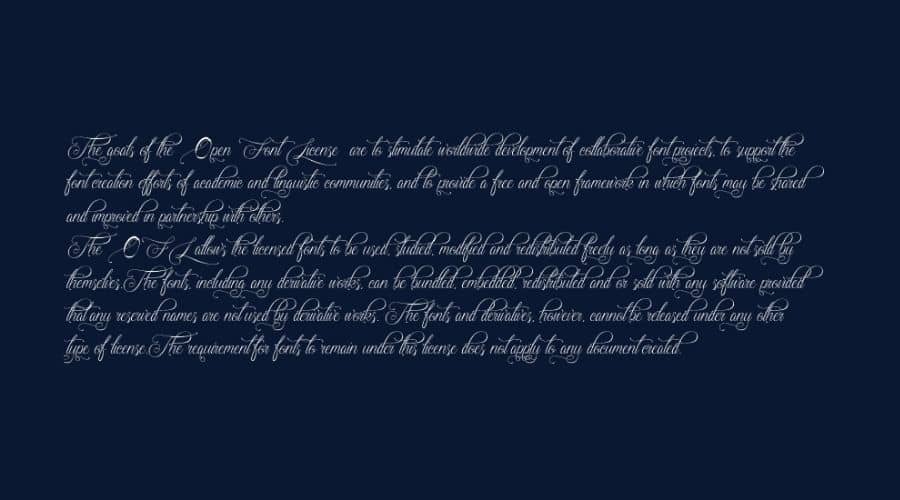
Chiangmai Hostel Font Free
I’ll keep introducing you to a lovely handwritten typeface. Chiangmai Hostel Font is an introduction to the Chiangmai Hostel Font. Typhoon Type – Suthi Srisopha created and shared Chiangmai Hostel. The Chiangmai Hostel Font is only for personal use! Starting with uppercase, lowercase, Numeric, and certain Special character and alternatives, fonts are available. This is a stunning typeface that will allow you to create international designs with ease.
If you’re seeking for a Calligraphy-style font with a unique look and feel, this is the font for you. The Chiangmai Hostel is compatible with the Cricut cutting machine and will be a great way to spice up your Cricut creations. This crafted typeface will add a great natural vibe to every part of your design. Adobe Illustrator, Adobe Photoshop, Adobe InDesign, and even Microsoft Word may use it. Characters that are completely accessible and PUA encoded without the need for additional design software. The font was first published on January 25, 2018. The Font is compatible with Windows, Apple/Mac, Linux, Cricut, Silhouette, and other cutting machines. The typeface is available in two different formats: OTF and TTF.
If you need to bring sensitivity to your project, this font is for you. The Chiangmai Hostel Font is suitable for a wide range of applications, including titles, logotypes, invitation cards, certificates, and labels, as well as small-scale writing. Chiangmai Hostel is the perfect font for all your fun designs. This Font is great for logos, branding, invitations, stationery, wedding designs, logos, business cards, covers, t-shirts, social media posts, and more.
| Style | Script, Calligraphy |